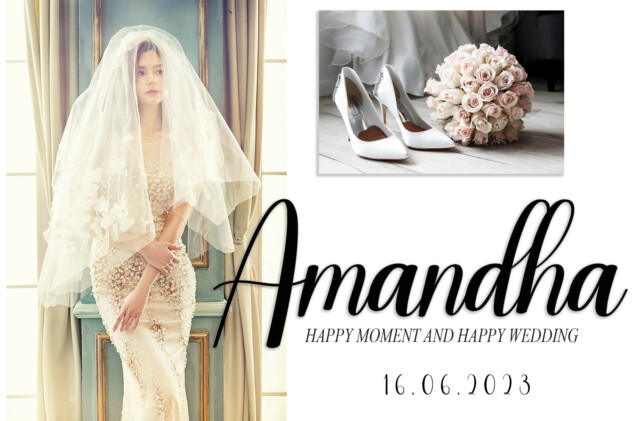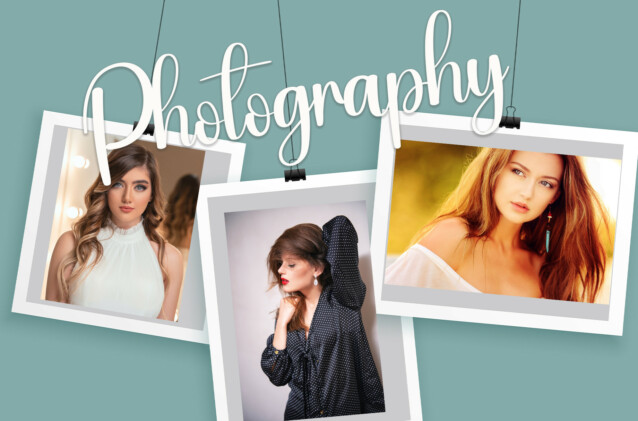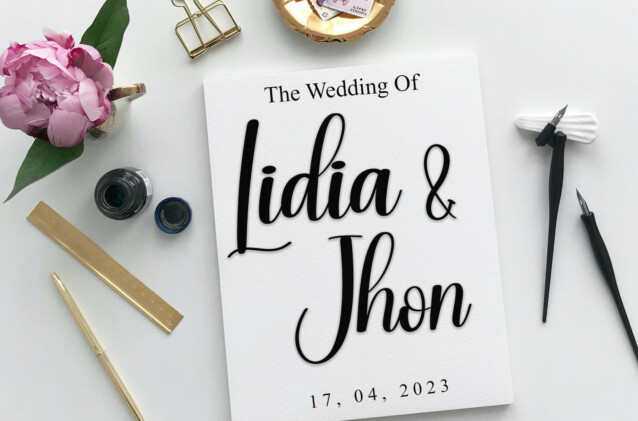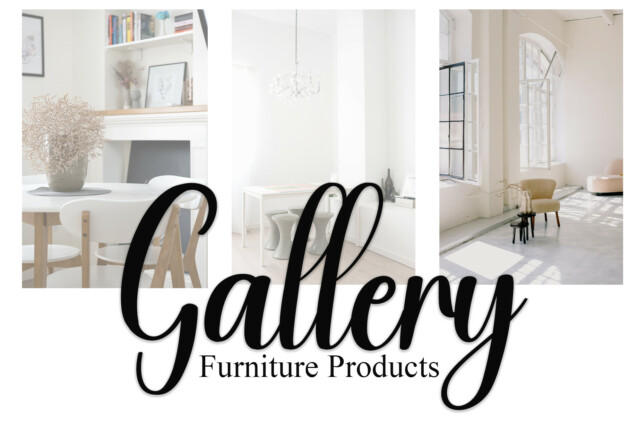
Cyan Script Font
Cyan Script Font is a sweet and friendly handwritten display font. Cute and fun, this font is ideal for writing wedding invitations, cards, or any other design that might need a playful touch!